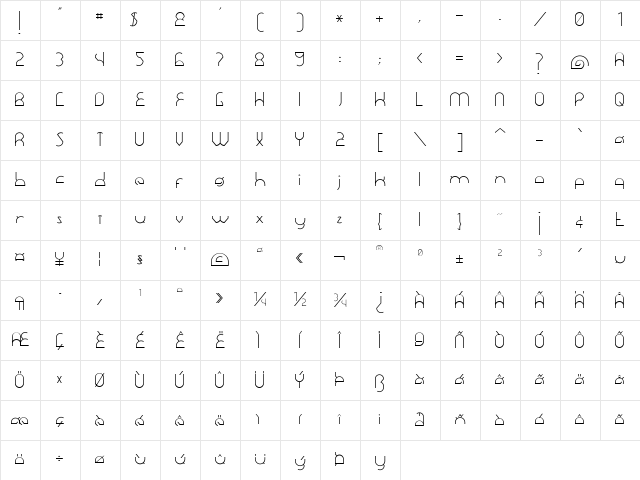
Dawner Light
Foundry: Alberto Villanueva
Designer: Alberto Villanueva
Dawner Family
Design Context for Dawner
Dawner is a composed and adaptable typeface that performs quietly and consistently across a wide range of design contexts. Its slender proportions lend an understated elegance to any composition.